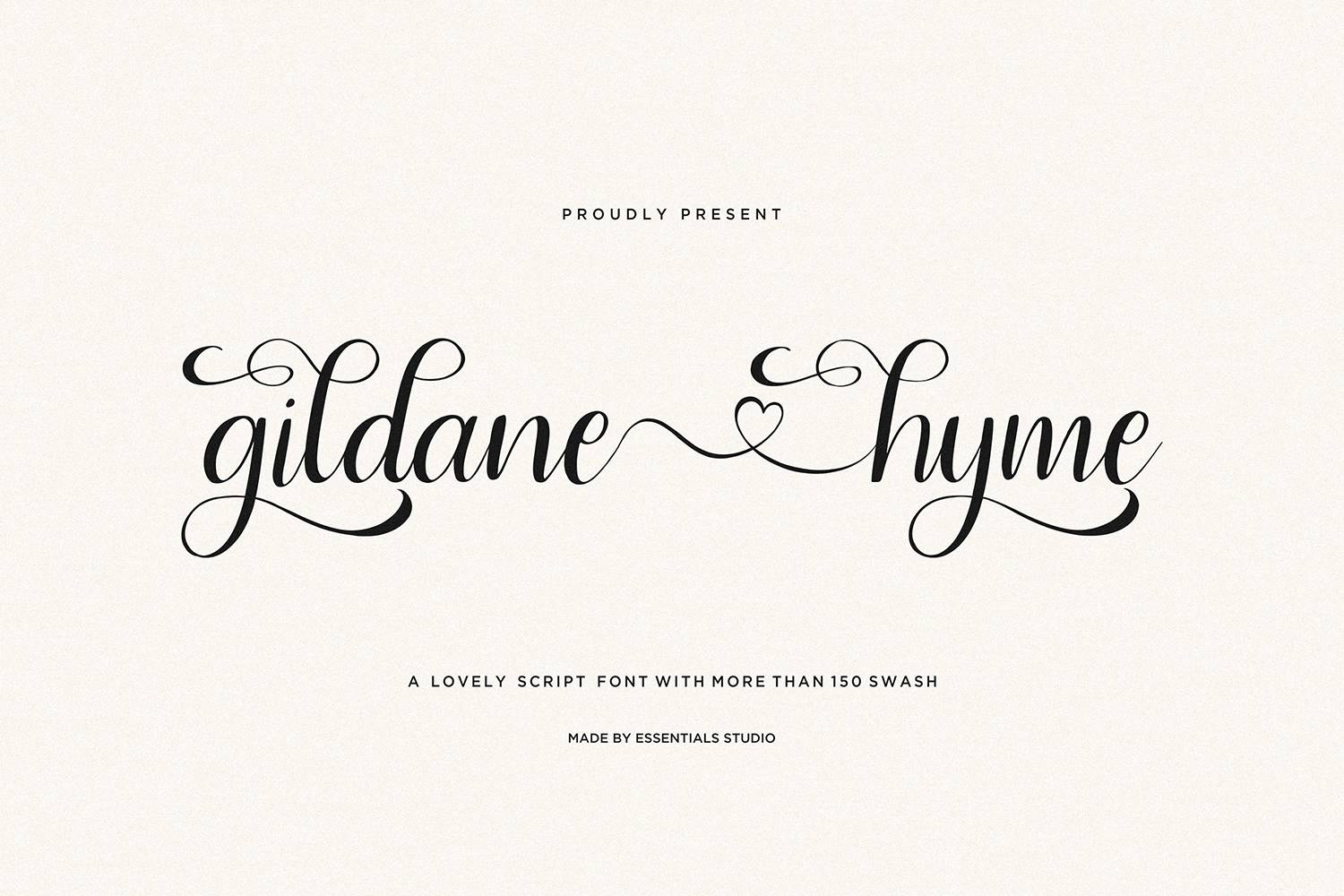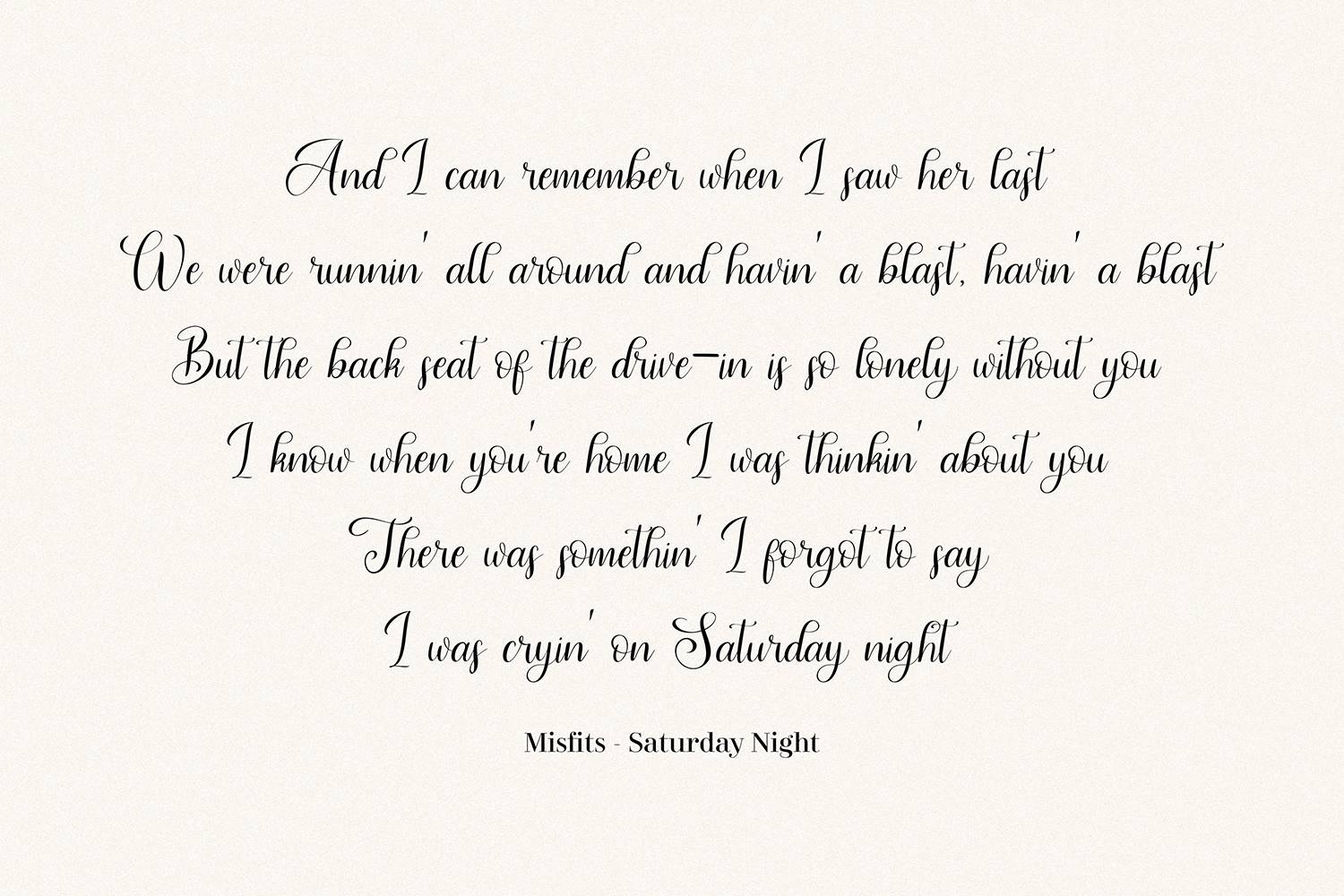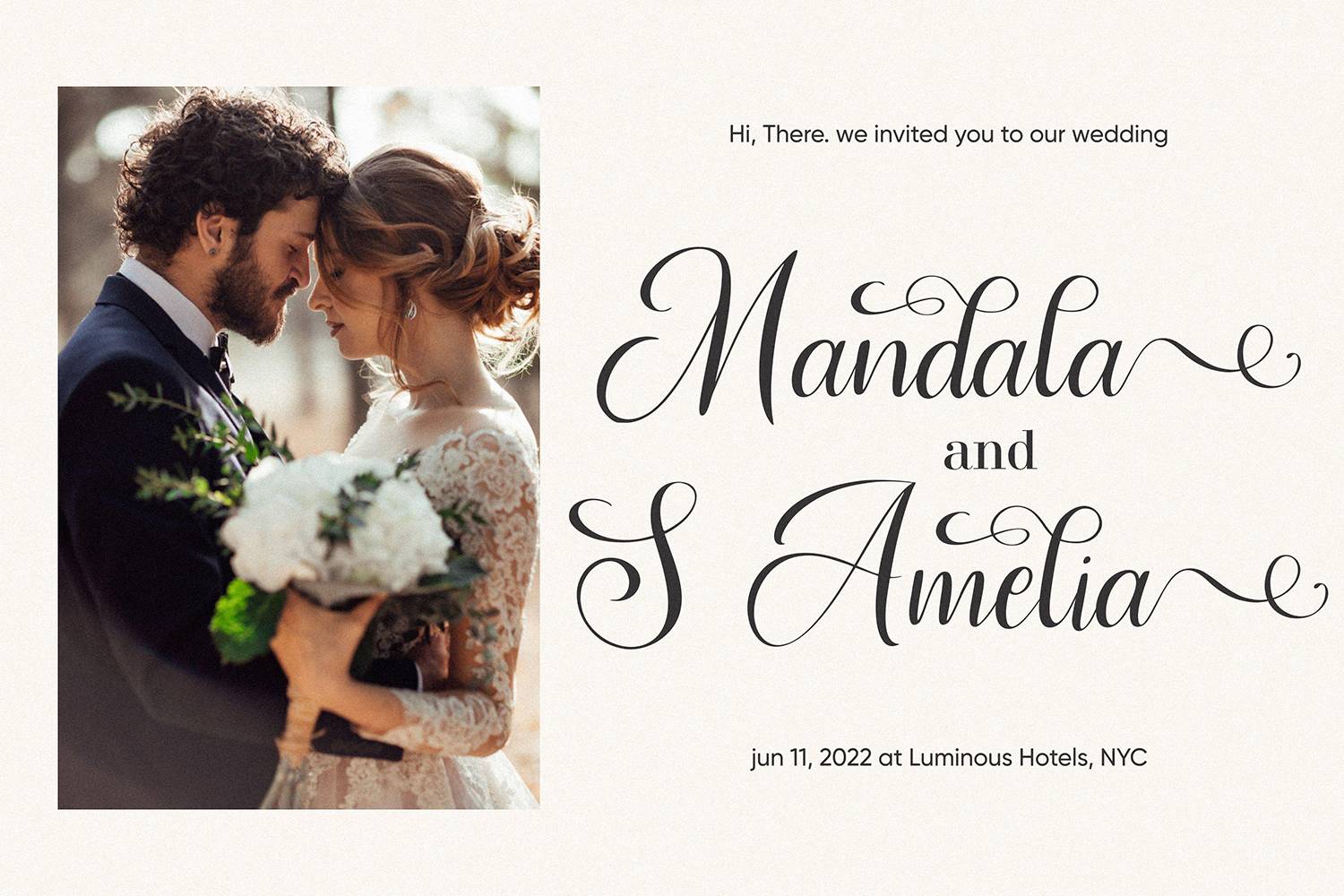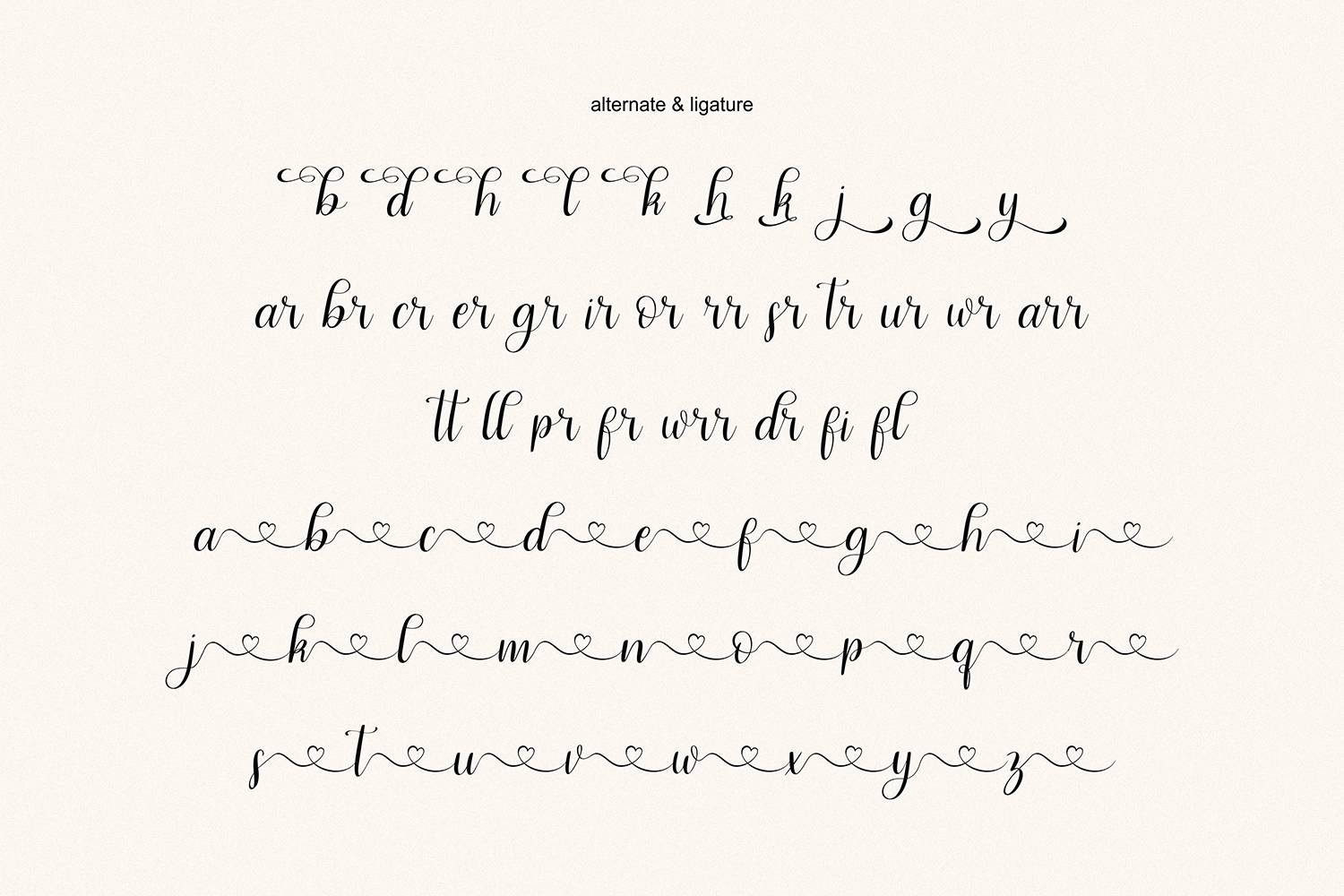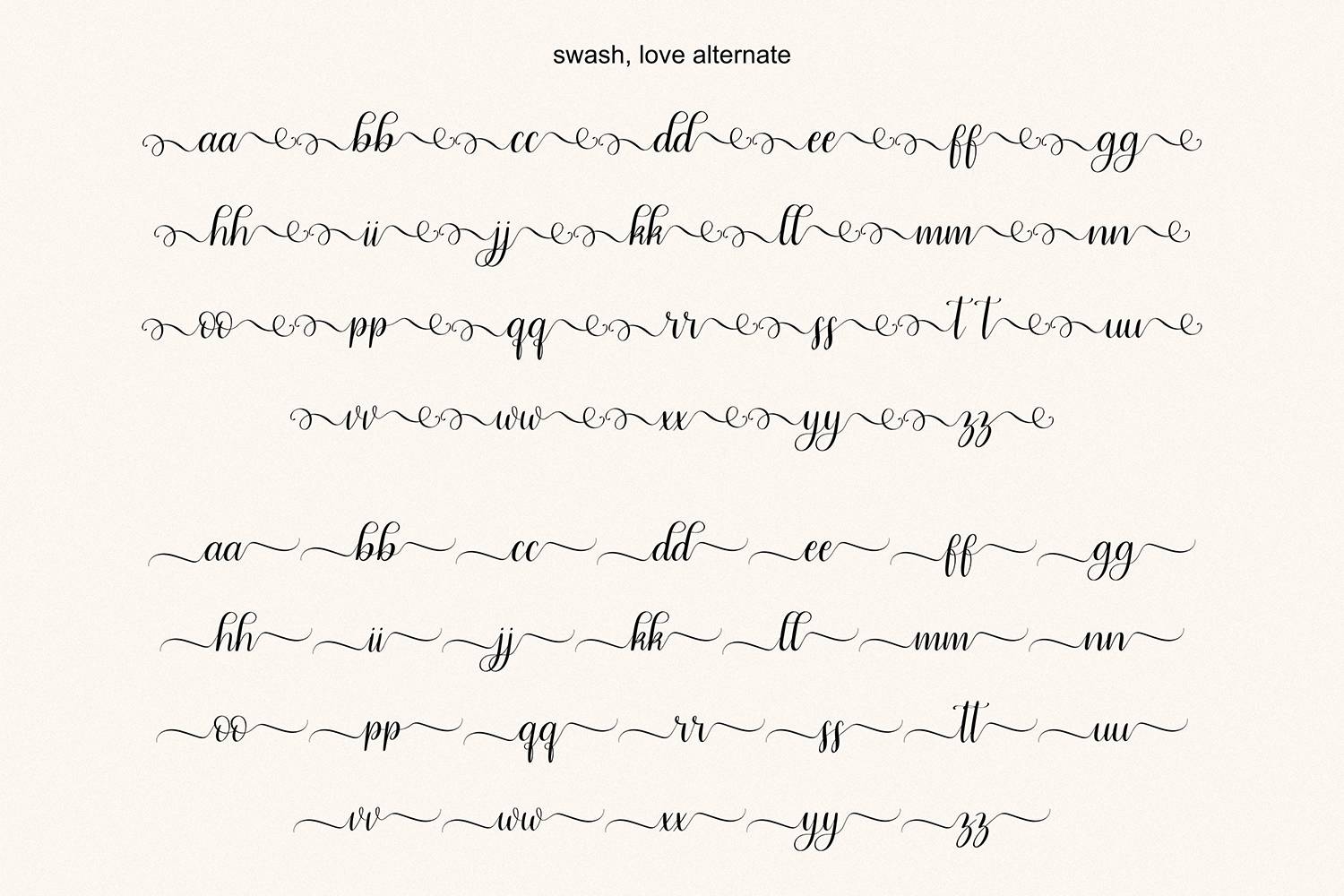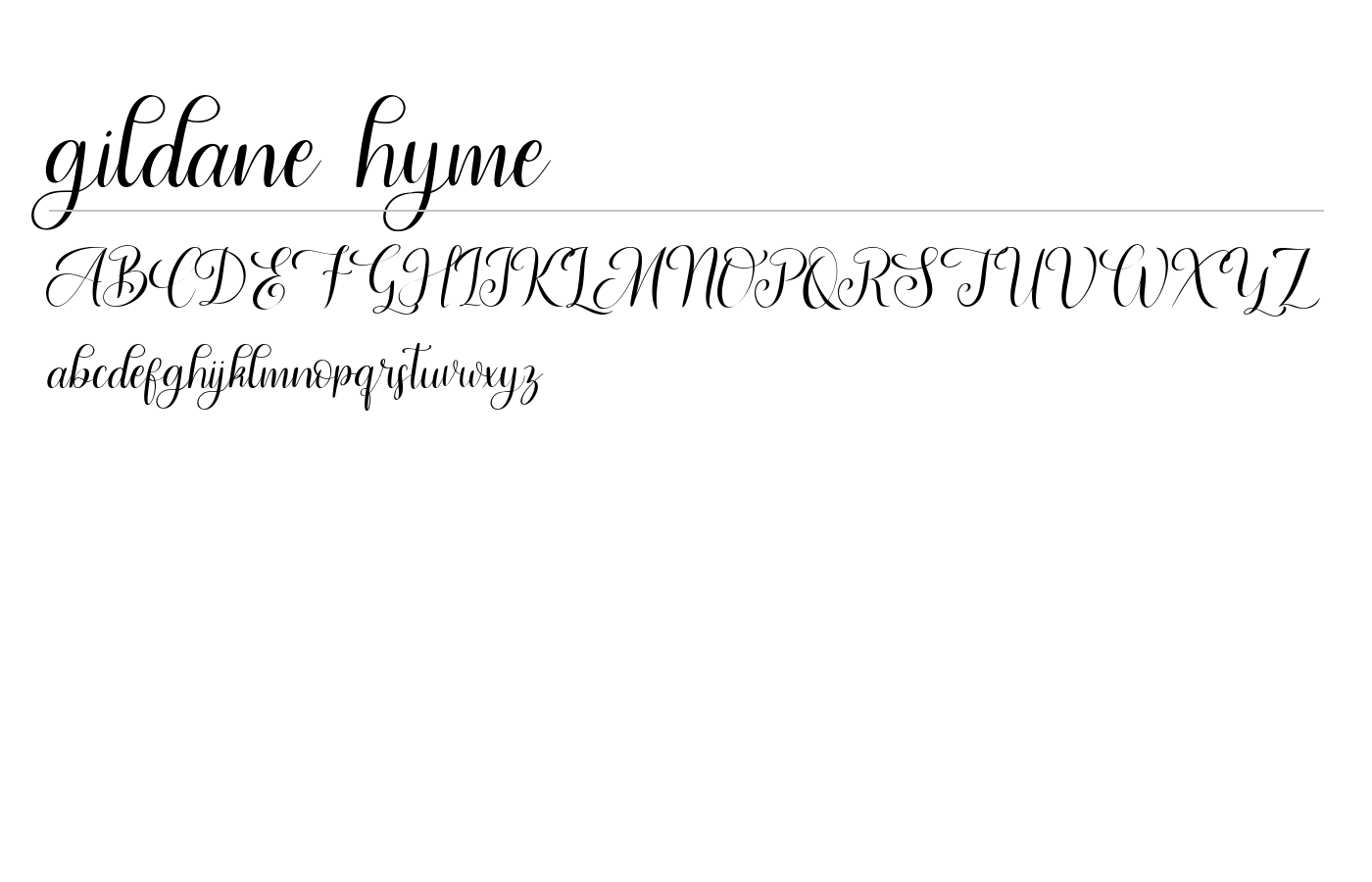
Gildane Hyme is an elegant script font characterized by its delicate, flowing strokes and refined calligraphic style. Its thin weight, high contrast between thick and thin lines, and graceful swashes give it a luxurious and sophisticated feel, making it perfect for wedding invitations, upscale branding, and elegant editorial designs. This font shines in settings that require a touch of femininity and classic charm, ideal for logos and headlines that demand a stylish and decorative appeal.
Gildane Hyme Font
About Gildane Hyme Font
| Font family | Gildane Hyme Font |
| Designer | Bagus Panji Asmoro |